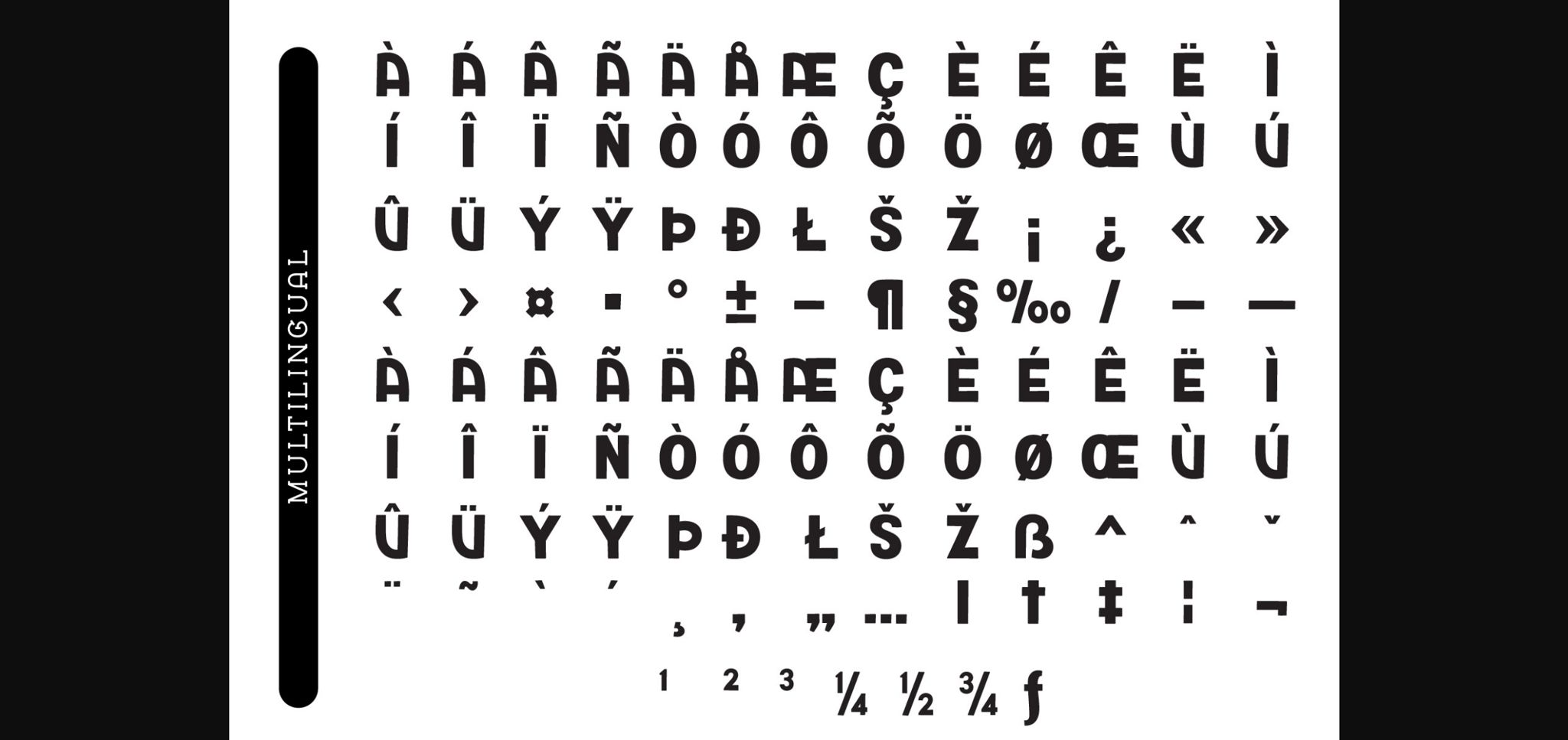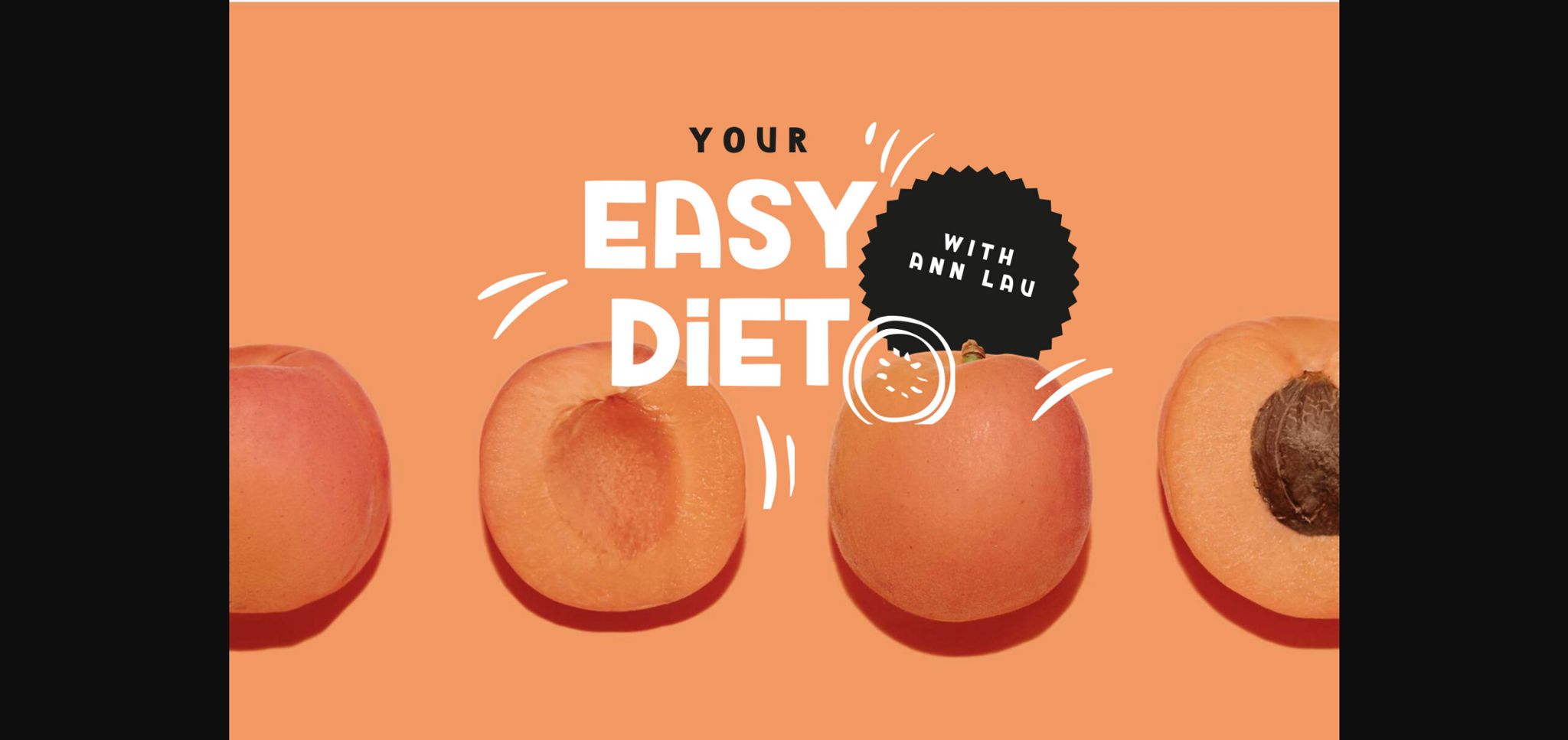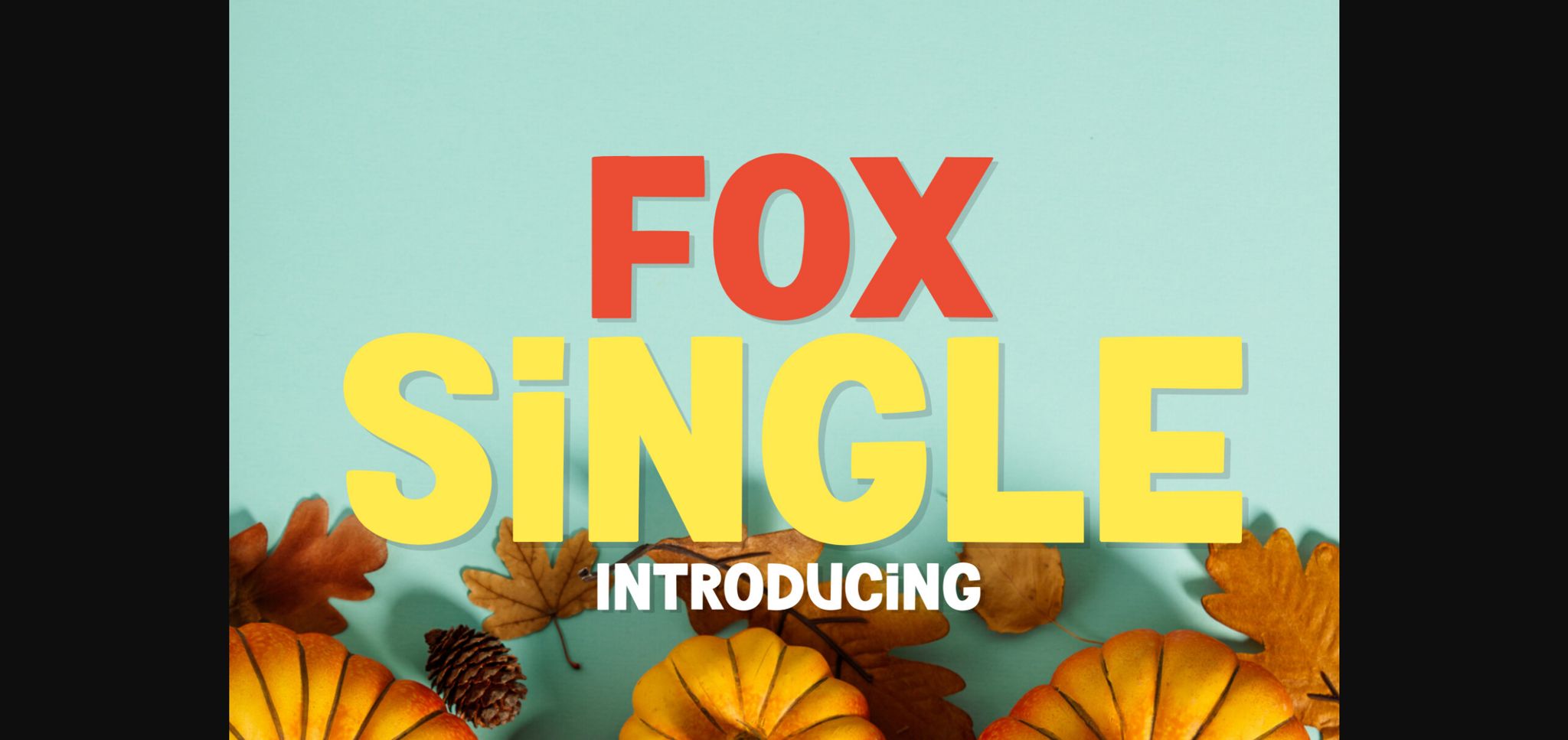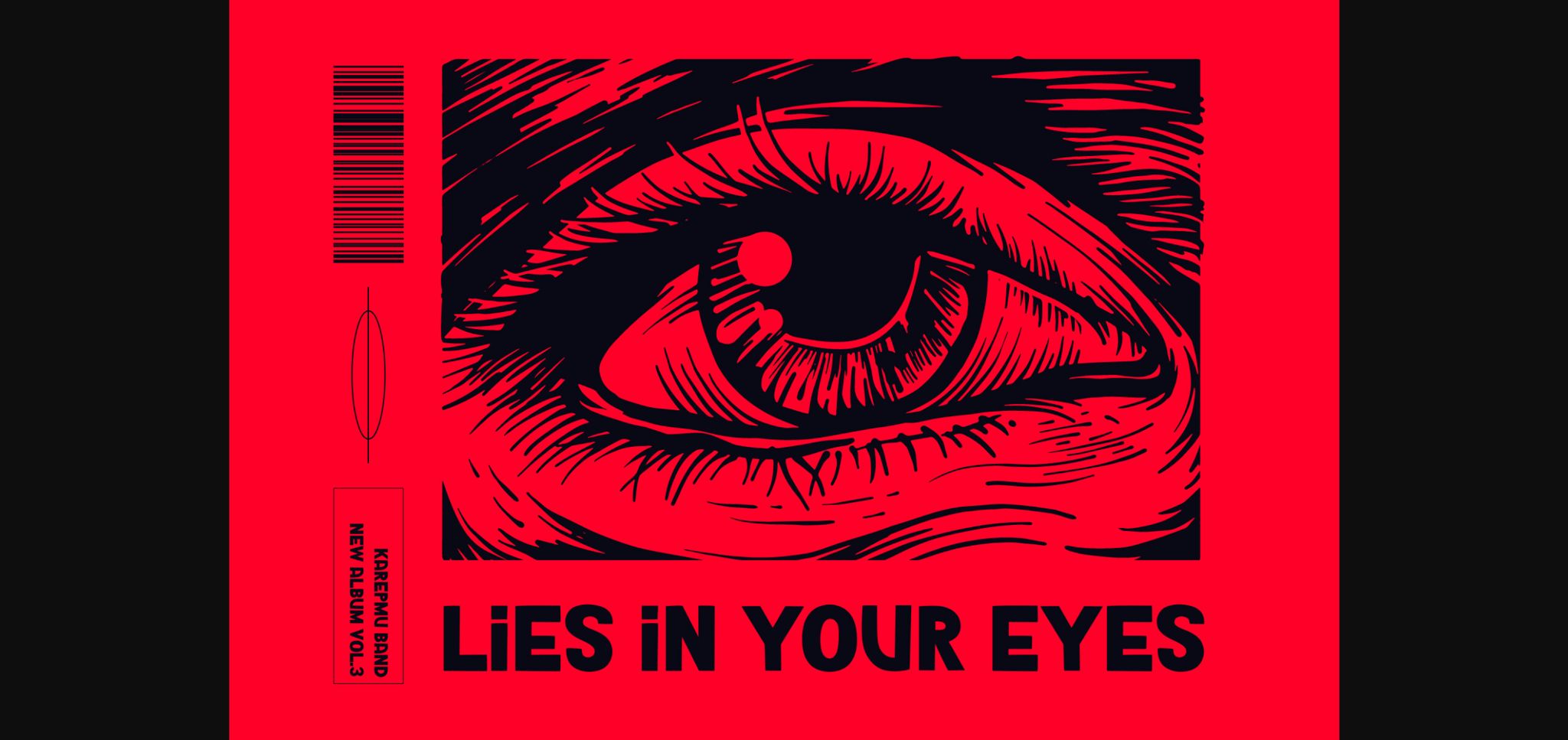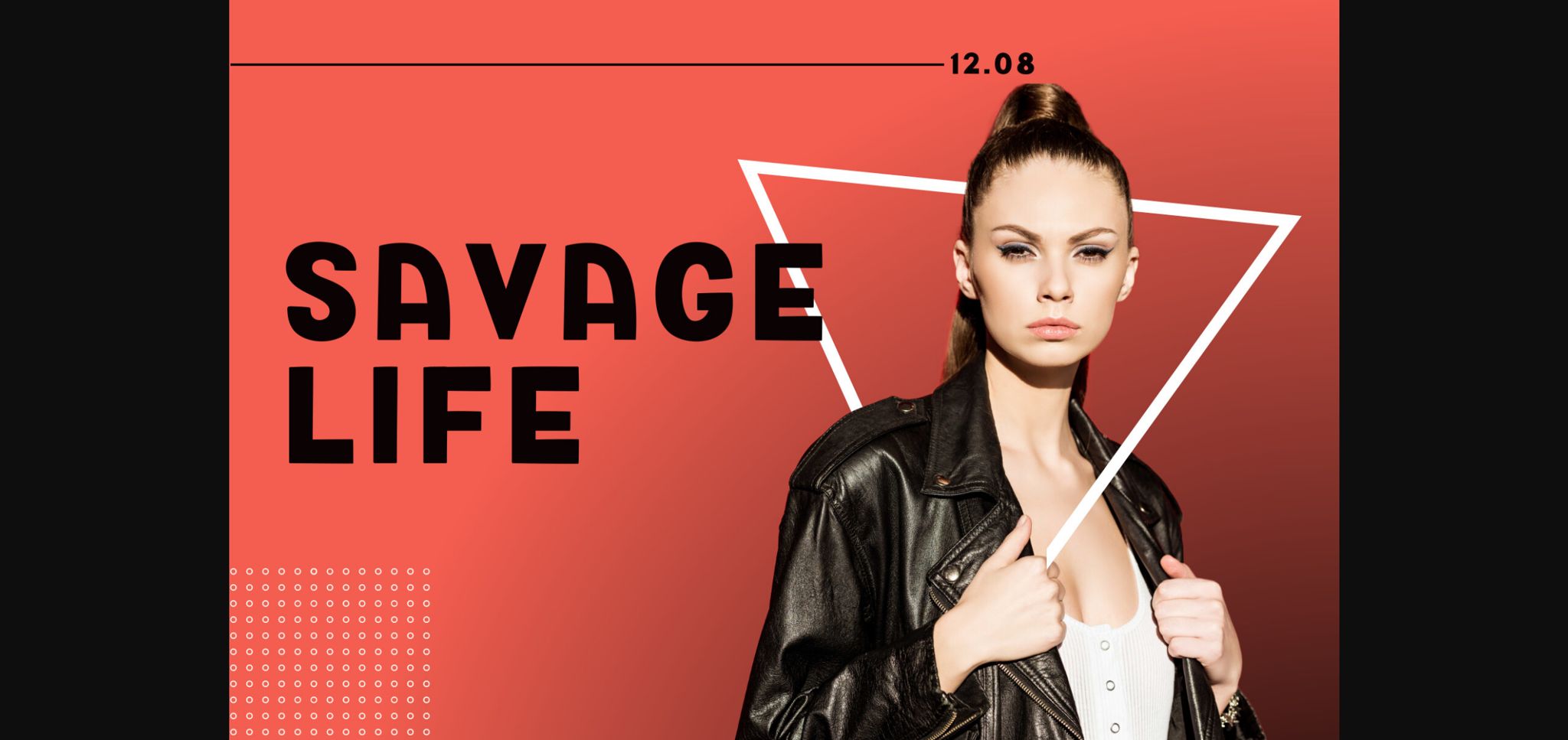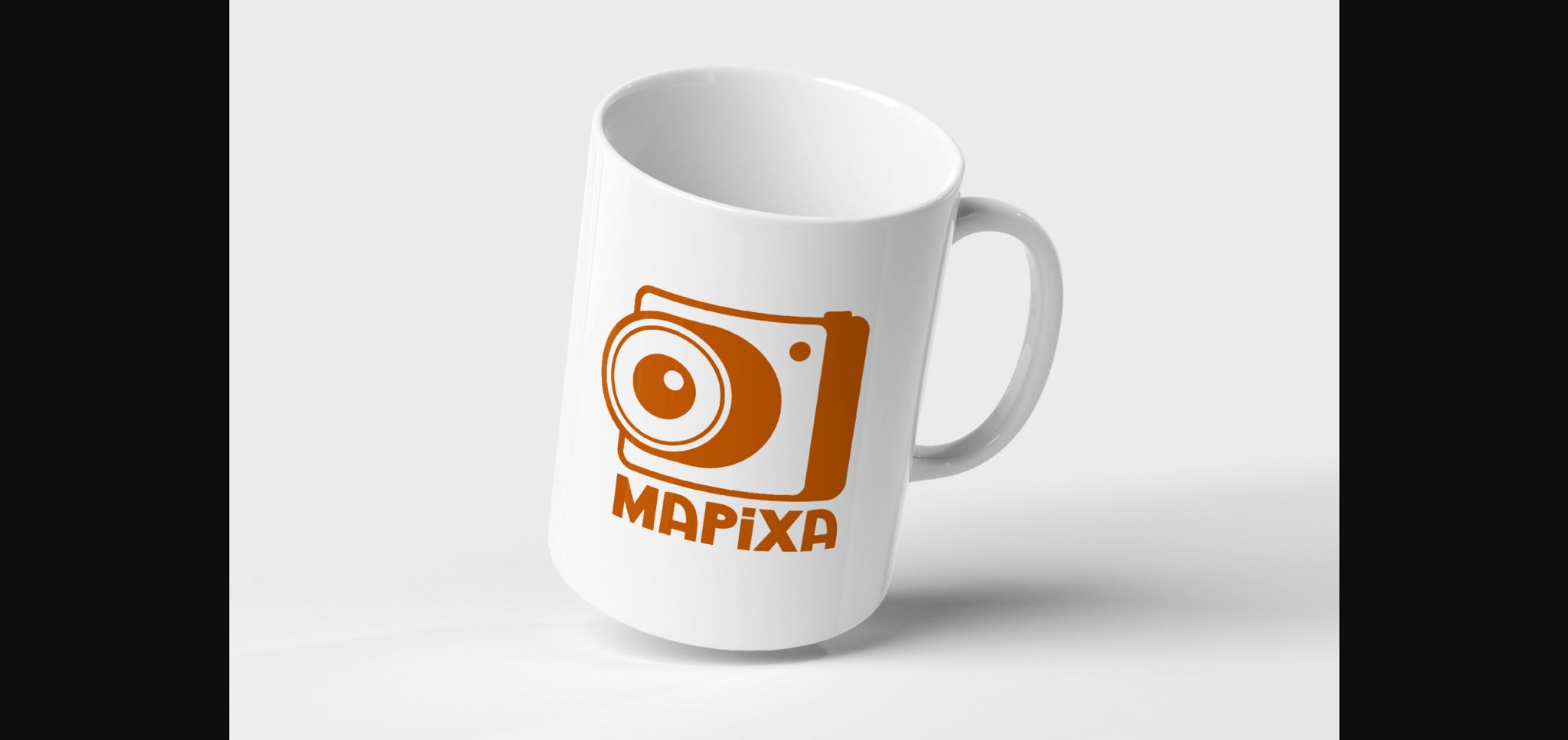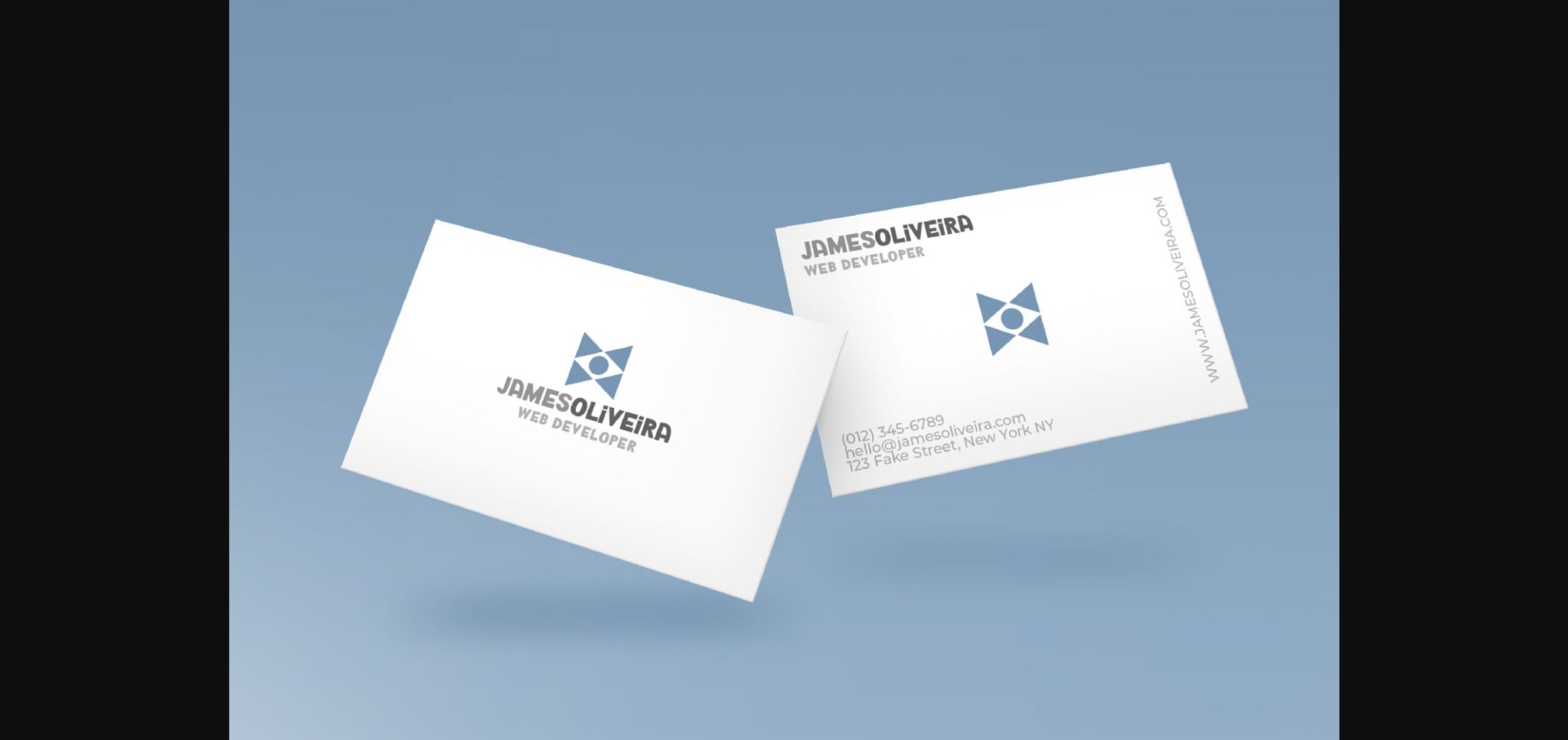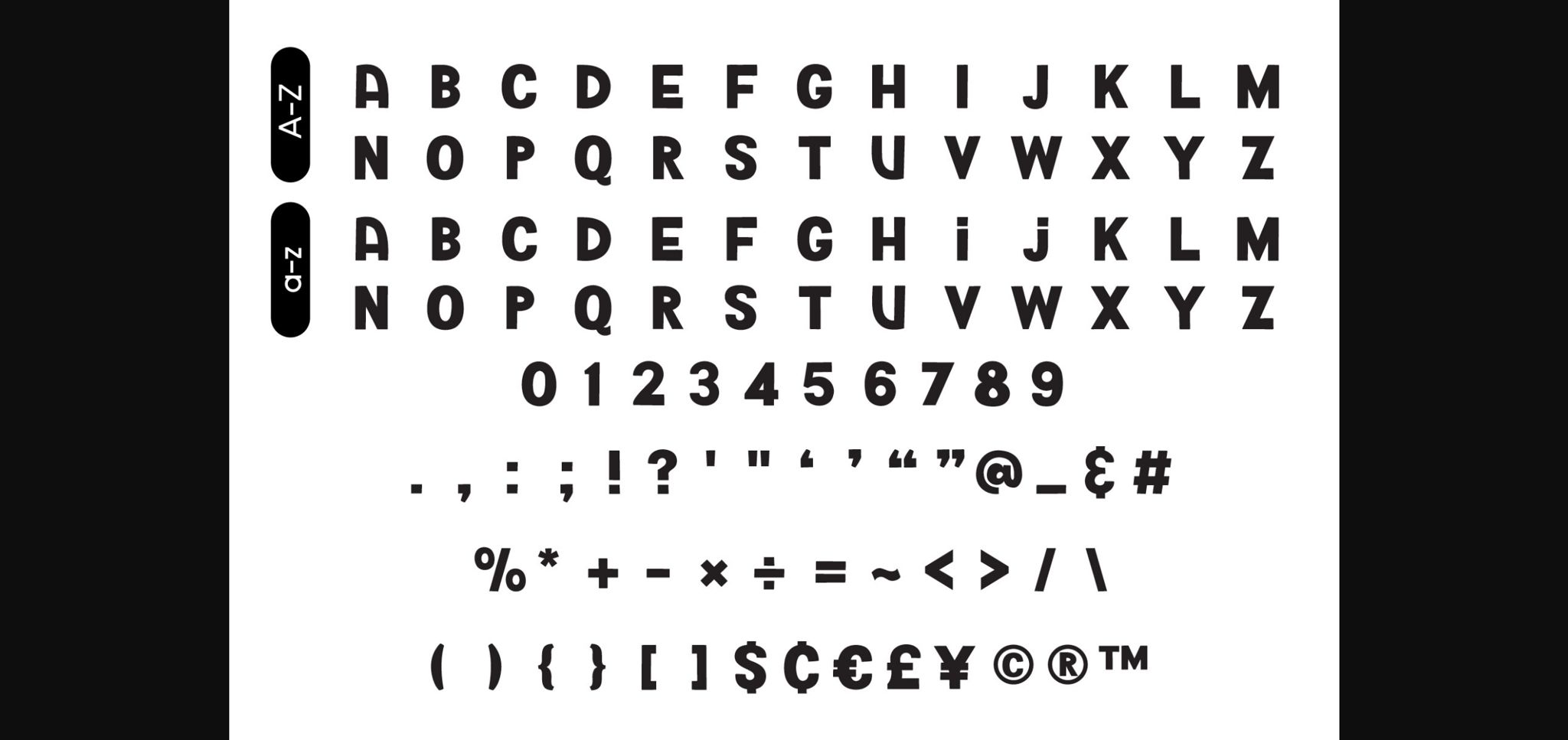
Fox Single Font
About Fox Single Font
Fox Single is a strong and incredibly cool sans serif. It is perfect for use on publications, logos, business cards, or printed on t-shirts. This font will look outstanding on everything, no matter the topic.